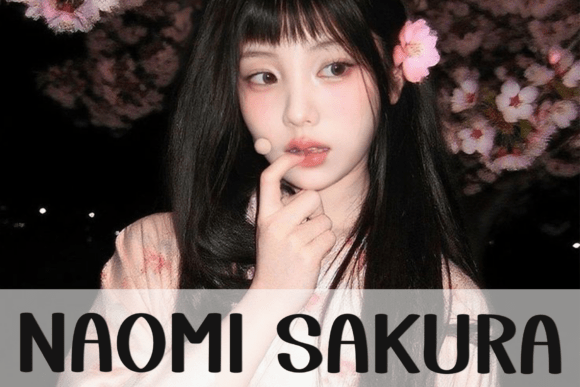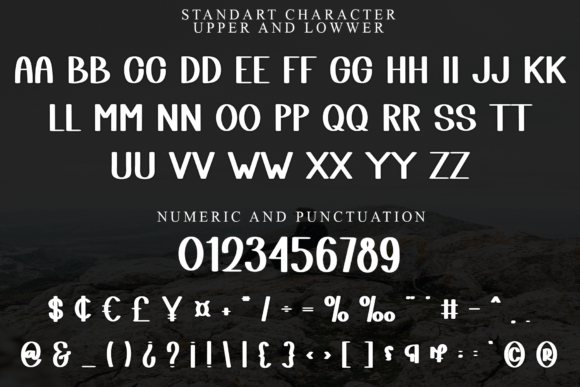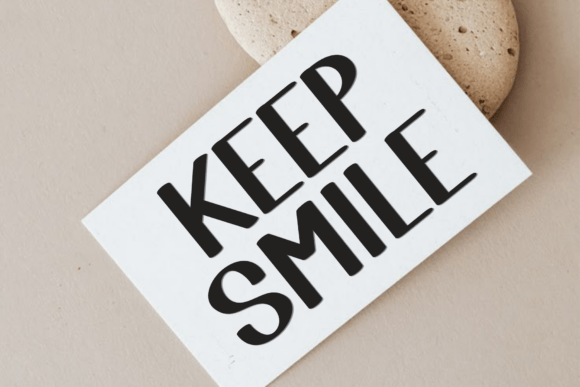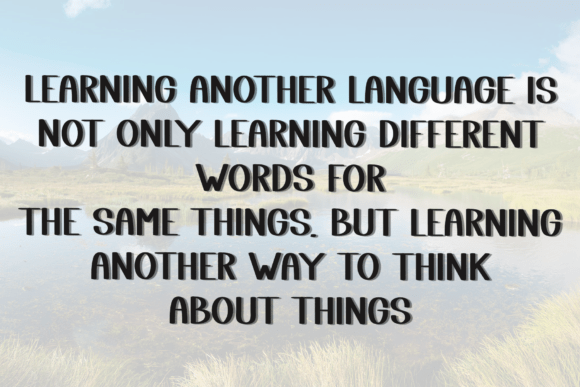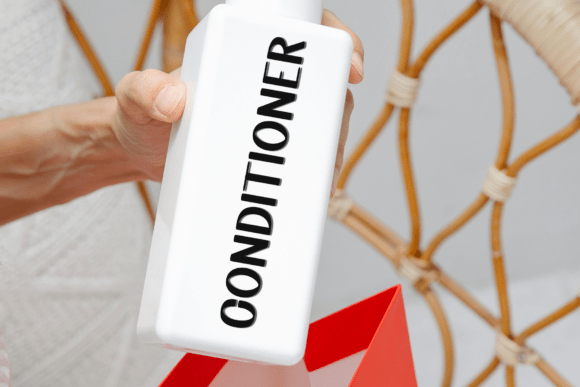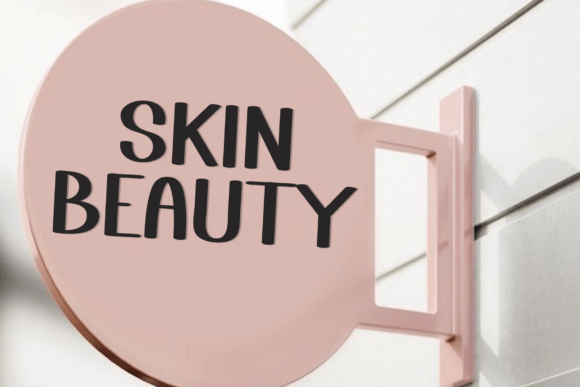
The Elusive Perfect Font: My Journey with Daylight Font
I’ll never forget the frustration of working on a design project, hours spent pouring over every detail, only to be held back by one thing: the font. My client wanted something unique, something that would make their brand stand out, but I was stuck in a sea of sans-serifs and overused classics. That’s when I stumbled upon Daylight Font, and my design woes began to fade away.
First Impressions: A Beautiful, Eye-Catching Font
Daylight Font is a beautiful and eye-catching font designed with a soft, unique touch. Its distinctive strokes give it a special character, making it meaningful and versatile for future use. With various characters, it’s perfect for design projects, crafts, and other creative works.
An Honest Review: The Good and the Quirks
- ✨ Soft and unique touch that’s perfect for designs that need a personal touch
- ✅ Highly versatile and can be used for a wide range of projects, from crafts to professional branding
- 🌈 Beautiful character variations that add depth and interest to any design
- 🤔 Some characters may require manual kerning for optimal spacing
- ⚠️ Limited availability of certain special characters, which may require workarounds
The Designer Inspiration Behind Daylight Font
Daylight Font was designed with the intention of creating a unique and versatile font that would inspire creativity and bring a touch of personality to any design project. The designer’s inspiration came from a combination of traditional and digital elements, blended together to create a font that’s both modern and timeless.
Q: What makes Daylight Font unique?
A: Daylight Font’s unique touch and distinctive strokes set it apart from other fonts, making it perfect for designs that need a personal touch.